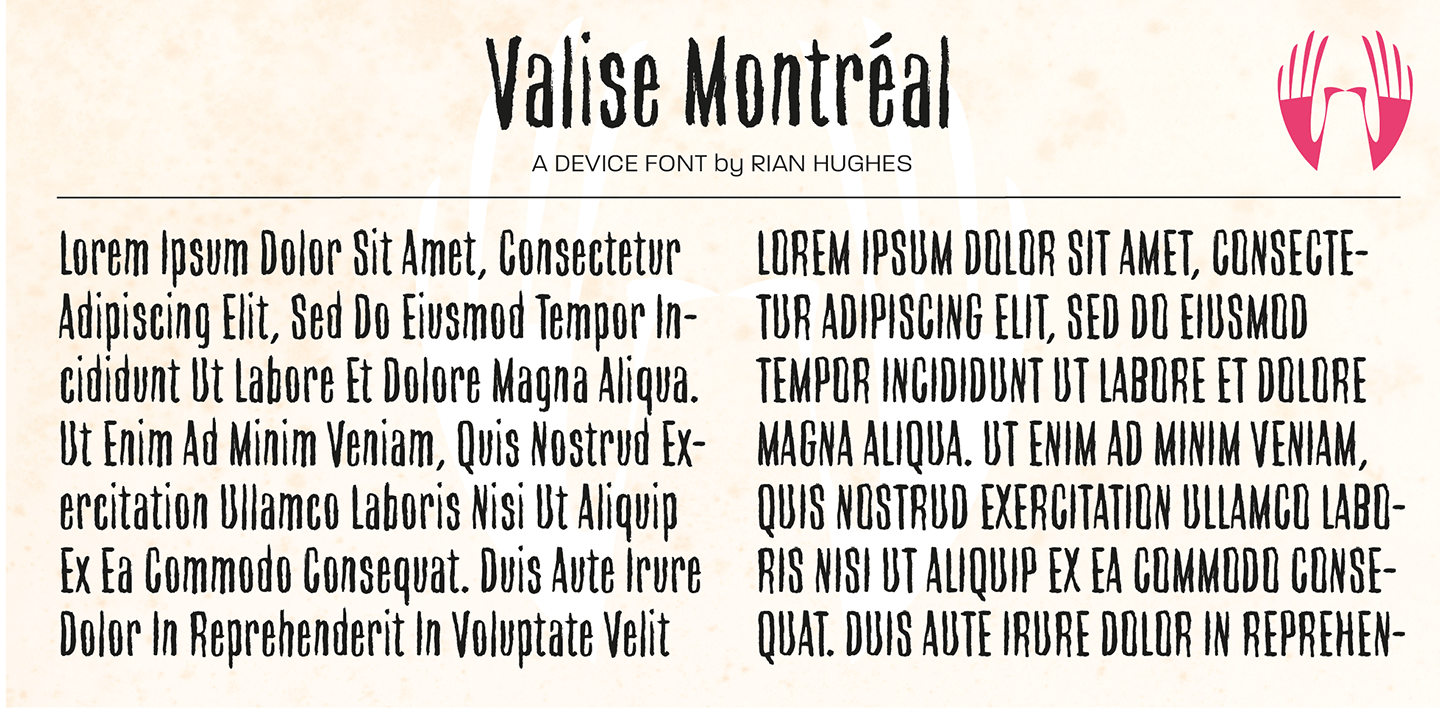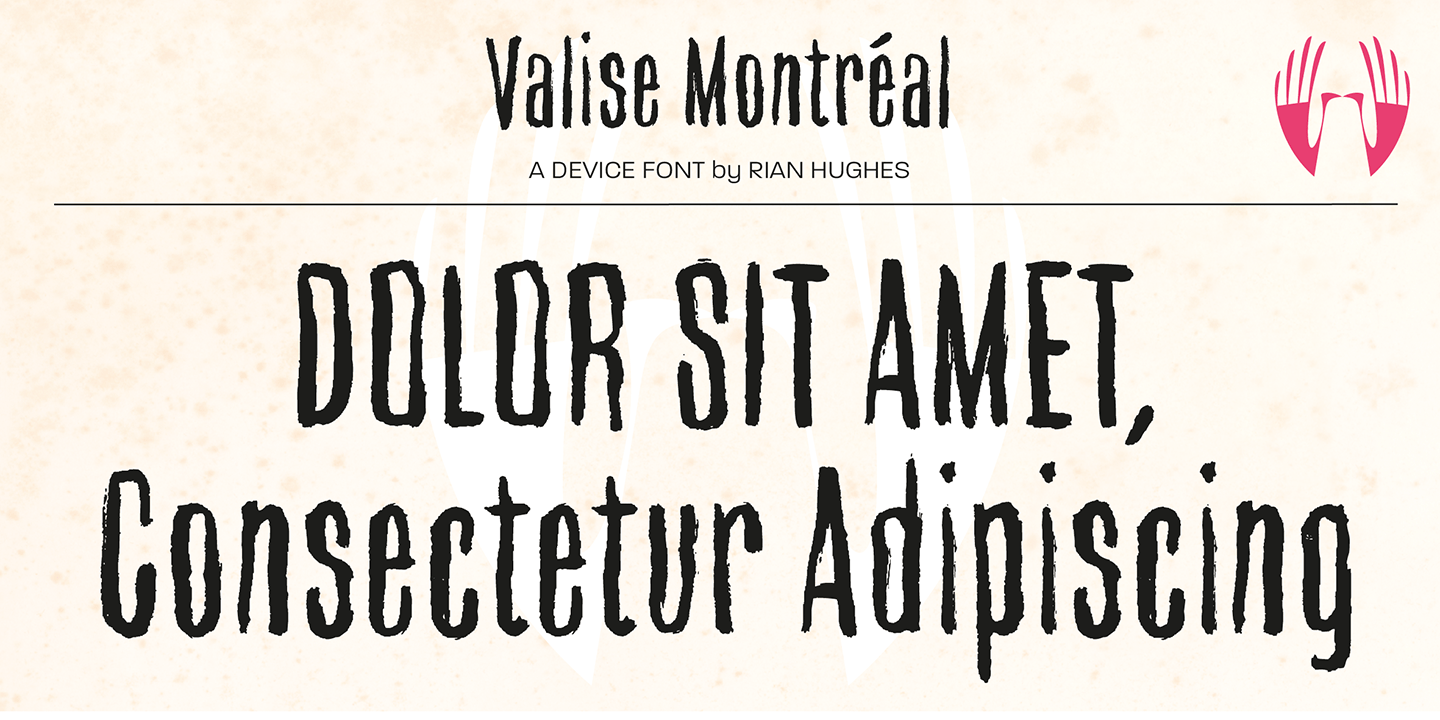
Valise Montreal
Buy NowA condensed loose brush style.
This font has a breezy elegance and casual sophistication, yet in a different context or color, it could be seen as nervous and urban. A weird dichotomy.
Set in smallish text blocks, it has a surprisingly even color. This is due to a balace that has been struck between keeping the roughness and idiosyncracies of a hand-drawn face but ensuring an overall regularity.